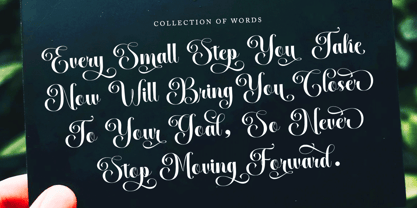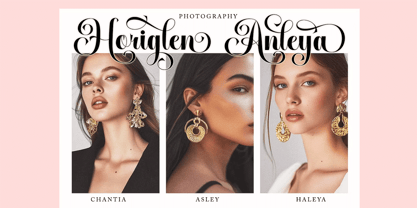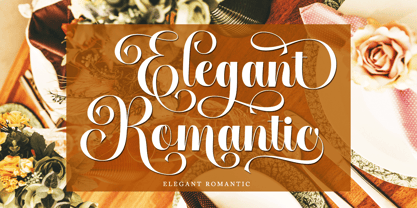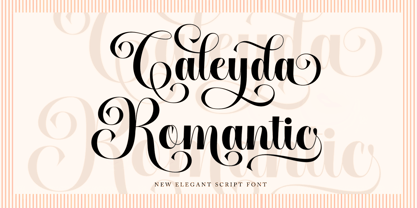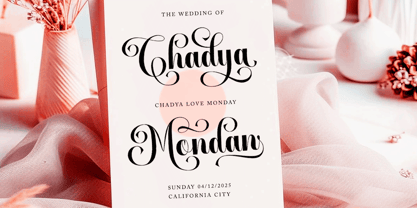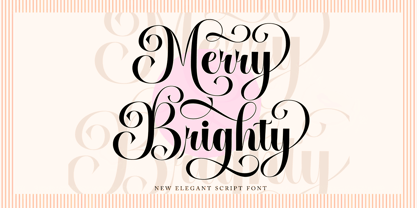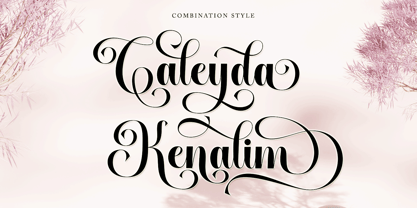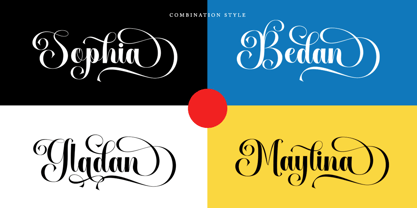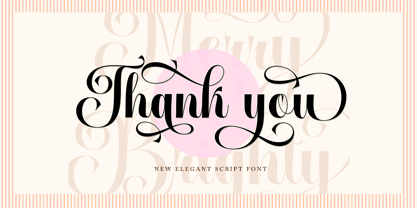
Caleyda Romantic
The Caleyda Romantic Font Family was designed by Wahi Din and published by Gold Type. Caleyda Romantic contains 1 styles.
Caleyda Romantic Script is one of the Elegant script fonts that comes with a very beautiful character change, a kind of classic copper decorative script with a modern touch, designed with great detail to present an elegant style.
Caleyda Romantic Script is interesting because the typeface is pleasing to the eye, clean, feminine, sensual, glamorous, simple and very easy to read, thanks to the many luxurious letter connections. I also offer a number of decent style alternatives for some letters. The classic style is perfect for application in various formal forms such as invitations, labels, restaurant menus, logos, fashion, makeup, stationery, novels, magazines, books, greeting/wedding cards, packaging, labels or all types of advertising. purpose. . .